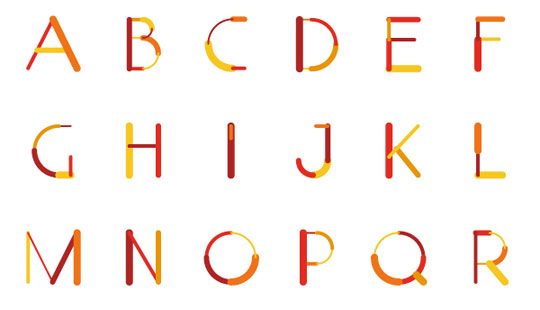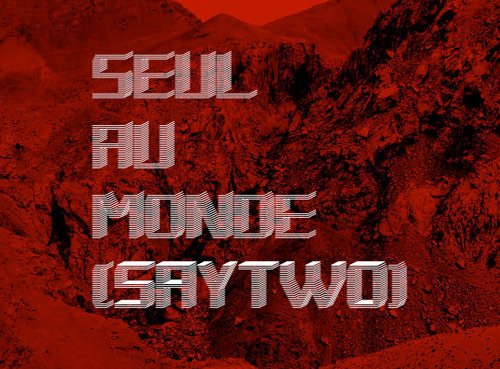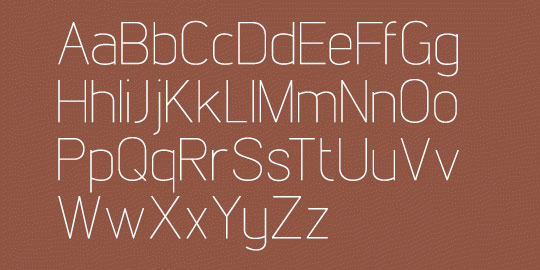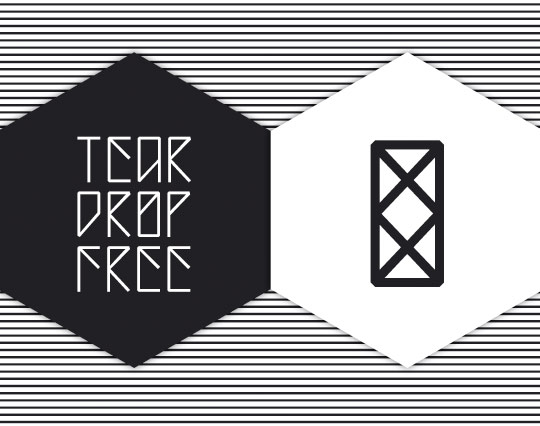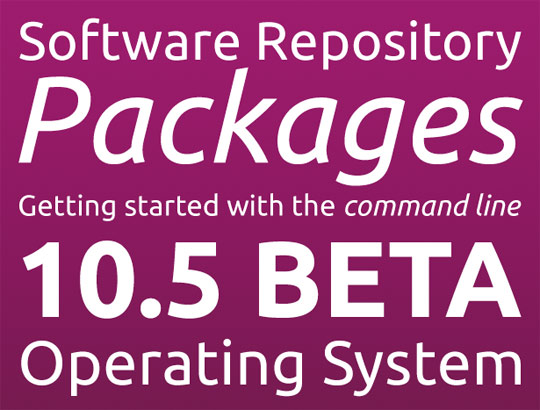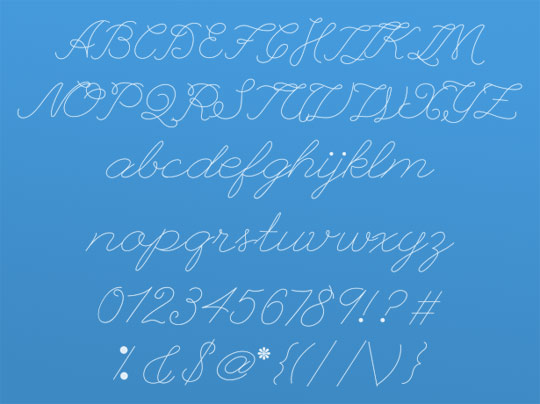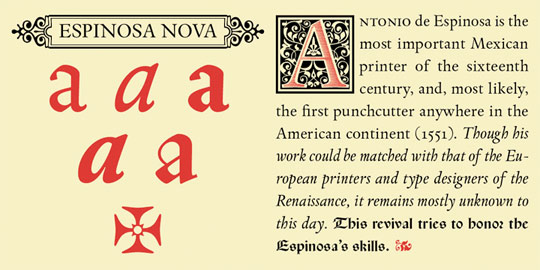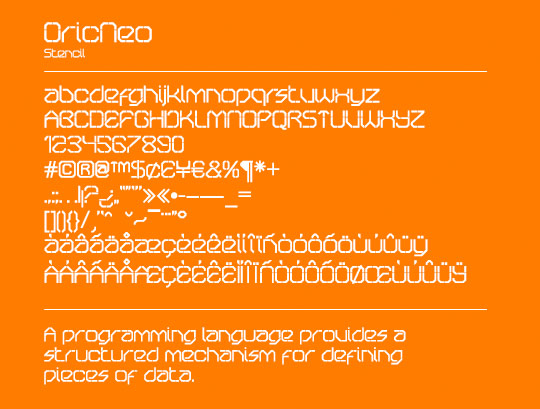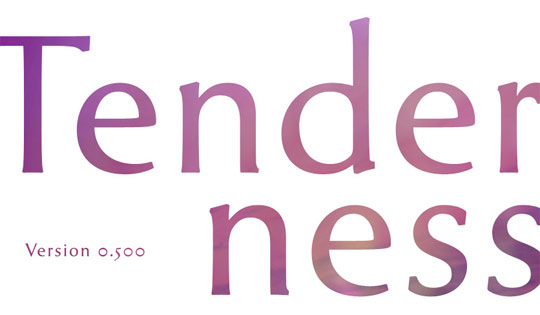
11 Fresh High-Quality Free Fonts
Matilde
Color Lines
SayTwo
Lintel Regular
Teardrop
Ubuntu
League Script
Espinova Nosa Regular
Melbourne
OricNeo
Tenderness
October 20, 2010Nice collection! There’s a small typo, the first “Teardrop” should be Ubuntu, and the second one should be League Script Thin.
October 20, 2010Espinova Nosa Regular
October 20, 2010Great list you have put together. I think the Melbourne type is really well executed. Always good to learn / find new type so cheers again for the post.
October 20, 2010melbourne font looks great!
October 20, 2010Very nice collection & thx for sharing! By the way, my favorite font is definitely “Melbourne”.
October 20, 2010Teardrop — the best!
October 20, 2010i love the Teardrop Font looks nice in logos
October 21, 2010the SayTwo font is the best of the bunch in my book but they are all great.
October 21, 2010i love the Teardrop Font looks good
October 21, 2010Love Ubuntu and Tenderness.